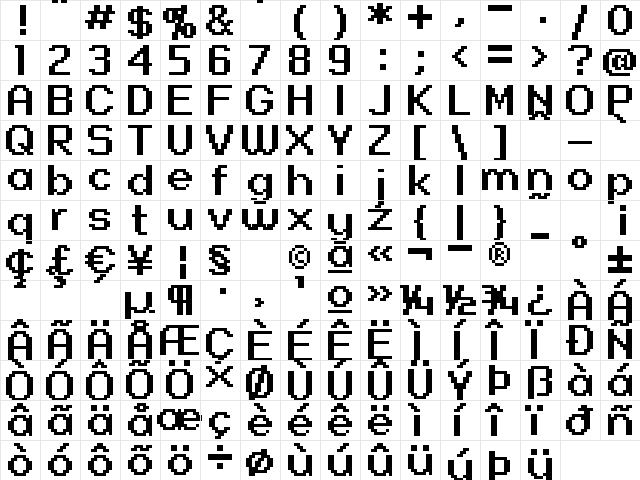
schoenecker 10_65 Regular Font Preview
schoenecker 10_65 Regular
schoenecker 10_65 Regular Font Details
Design Context for schoenecker 10_65 Typeface
schoenecker 10_65 offers clean, dependable letterforms without strong stylistic allegiance, making it a practical choice for designers who need flexibility.
Pro Tip: Use schoenecker 10_65 in both headline and body roles to test its range before committing to a single application.